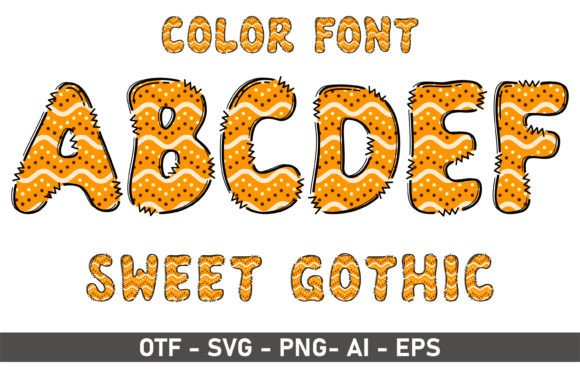
Dive into the world of Sweet Gothic Font, an exuberant collection of colorful fonts that will transform your designs into vibrant masterpieces. These fonts dance with playful energy, adding a touch of whimsy and imagination to any project. Let your creativity soar as you explore the endless possibilities of this captivating font family.
Designed by the talented Veil, Sweet Gothic Font is a celebration of artistic expression. Each font brims with personality, inviting you to infuse your designs with vibrancy and charm. Whether you're crafting children's books, posters, invitations, greeting cards, or other delightful creations, Sweet Gothic Font will elevate your designs to new heights.
Picture the joy on a child's face as they embark on a reading adventure with Sweet Gothic Font. Its whimsical and easy-to-read characters create an immersive experience, drawing them into the world of stories and imagination. Engage their senses with a font that sparks curiosity and fuels their creativity.
Unleash your inner artist and bring your designs to life with Sweet Gothic Font. Its versatility knows no bounds, accommodating a myriad of creative projects. From social media posts and website banners to product packaging and branding materials, Sweet Gothic Font will add a touch of enchantment to every endeavor.
Embark on a journey of artistic exploration with Sweet Gothic Font. Its colorful characters and playful spirit will ignite your imagination and leave a lasting impression on your audience. Embrace the joy of creation and let your designs bloom with vibrancy and charm.